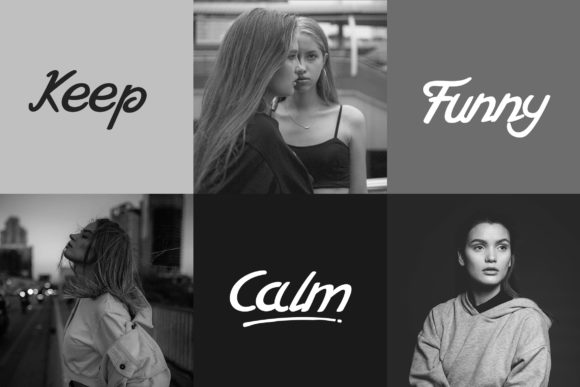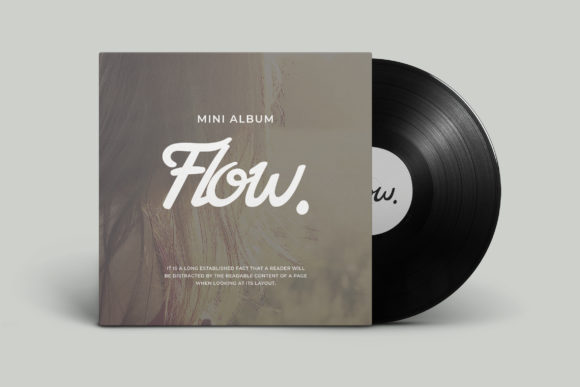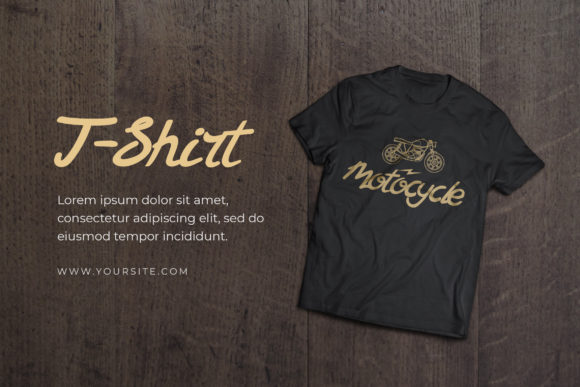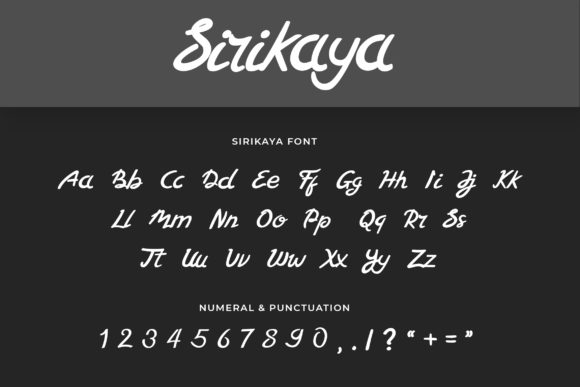
Sirikaya Font
About Sirikaya Font
Sirikaya is a unique and captivating handwritten font that adds a touch of creativity and artistic flair to your designs. With its distinct style and beautiful letterforms, Sirikaya is a versatile font that can be used in a variety of contexts.
One of the notable features of Sirikaya is its ability to bring a sense of artistry to your projects. The handcrafted nature of the font gives it an authentic and personalized look, making it perfect for adding a creative touch to social media posts, blog graphics, and other digital content. Whether you’re creating quotes, captions, or promotional materials, Sirikaya will elevate your design and make it stand out.
Moreover, Sirikaya is well-suited for calligraphy-inspired DIY projects. Its flowing and expressive strokes make it ideal for creating handmade cards, invitations, and other stationery items. Whether you’re addressing envelopes or designing personalized gifts, Sirikaya will bring elegance and sophistication to your creations.
When using Sirikaya, you have the freedom to experiment with different sizes, colors, and styles to achieve the desired effect. Its unique letterforms and varied line weights allow for creative flexibility, giving you the opportunity to make each design truly unique.
It’s important to ensure that Sirikaya remains legible and readable, especially when using it for longer blocks of text. Adjusting the spacing and line height can help maintain clarity and ensure that the message is easily understood.
In summary, Sirikaya is a unique and captivating handwritten font that adds a touch of artistry and creativity to your designs. Whether you’re working on social media graphics or DIY projects, Sirikaya will transform your ideas into true works of art. Embrace the versatility and distinctive style of Sirikaya to create memorable and visually appealing designs.